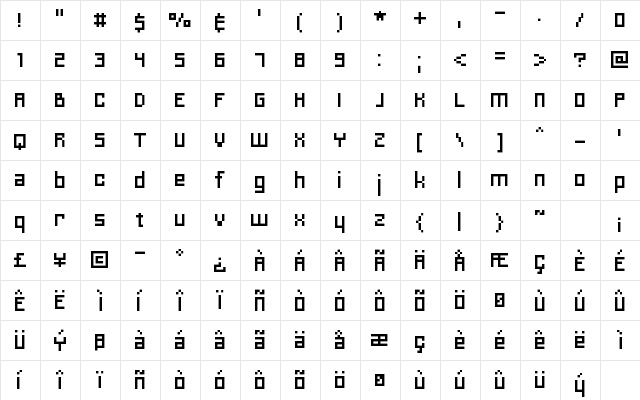
Charriot Deluxe Regular
Design Context for Charriot Deluxe Typeface
Charriot Deluxe offers clean, dependable letterforms without strong stylistic allegiance, making it a practical choice for designers who need flexibility.